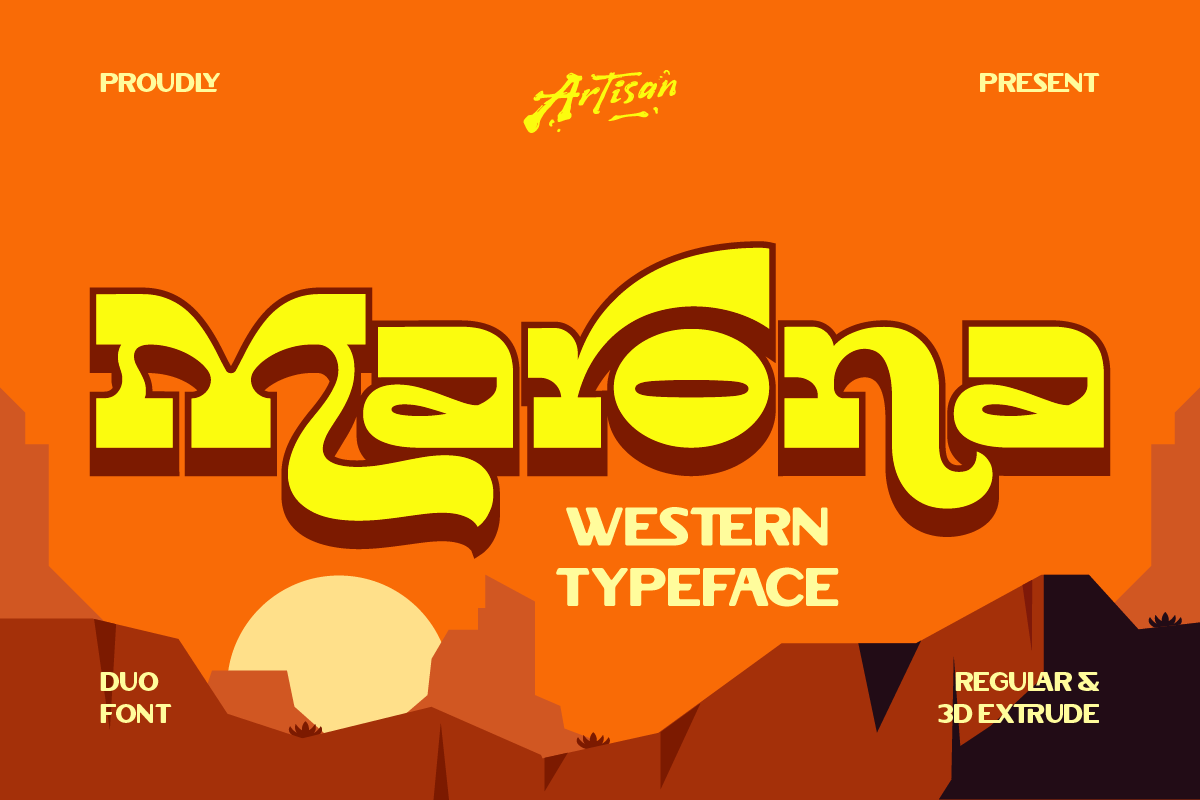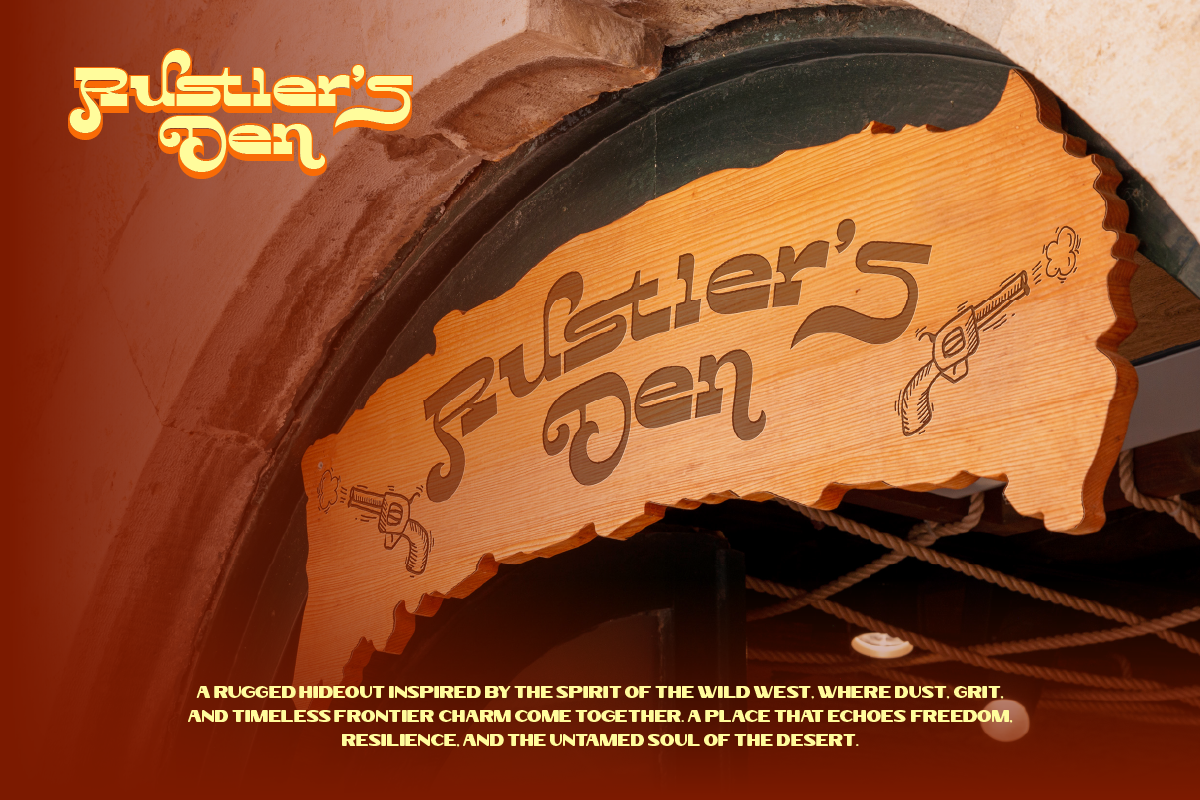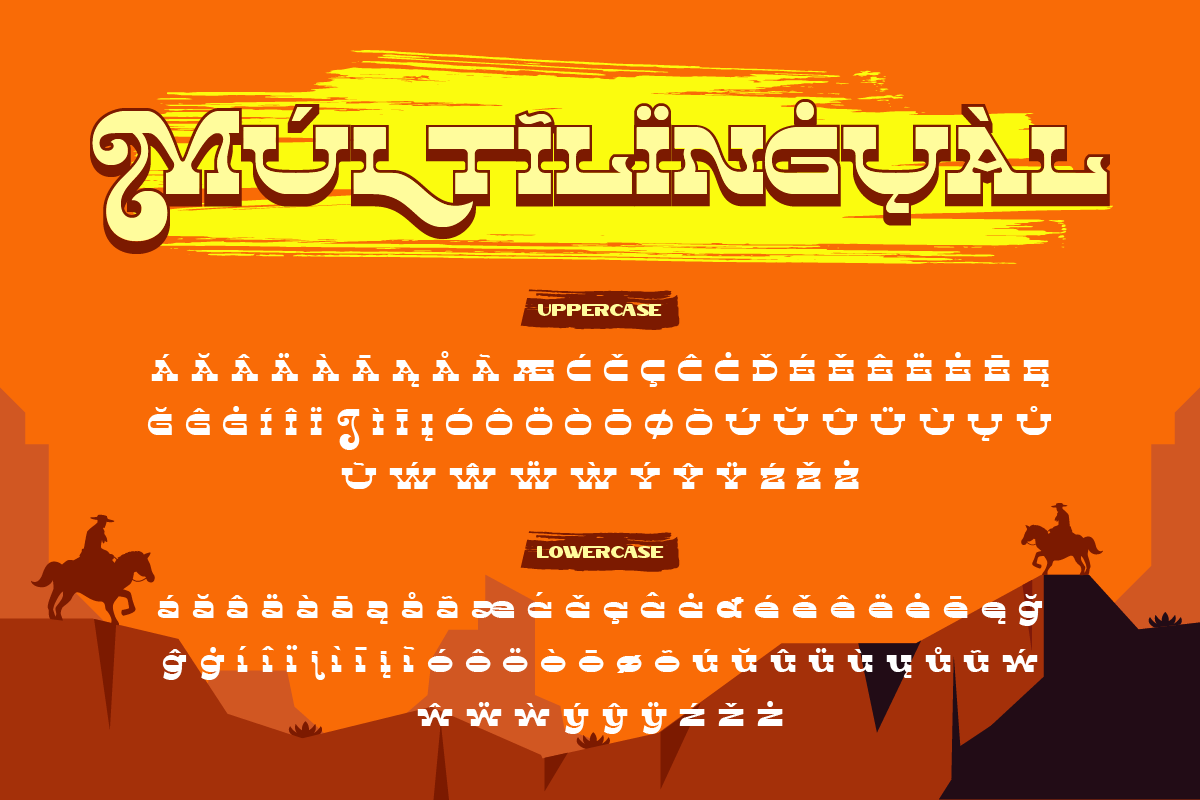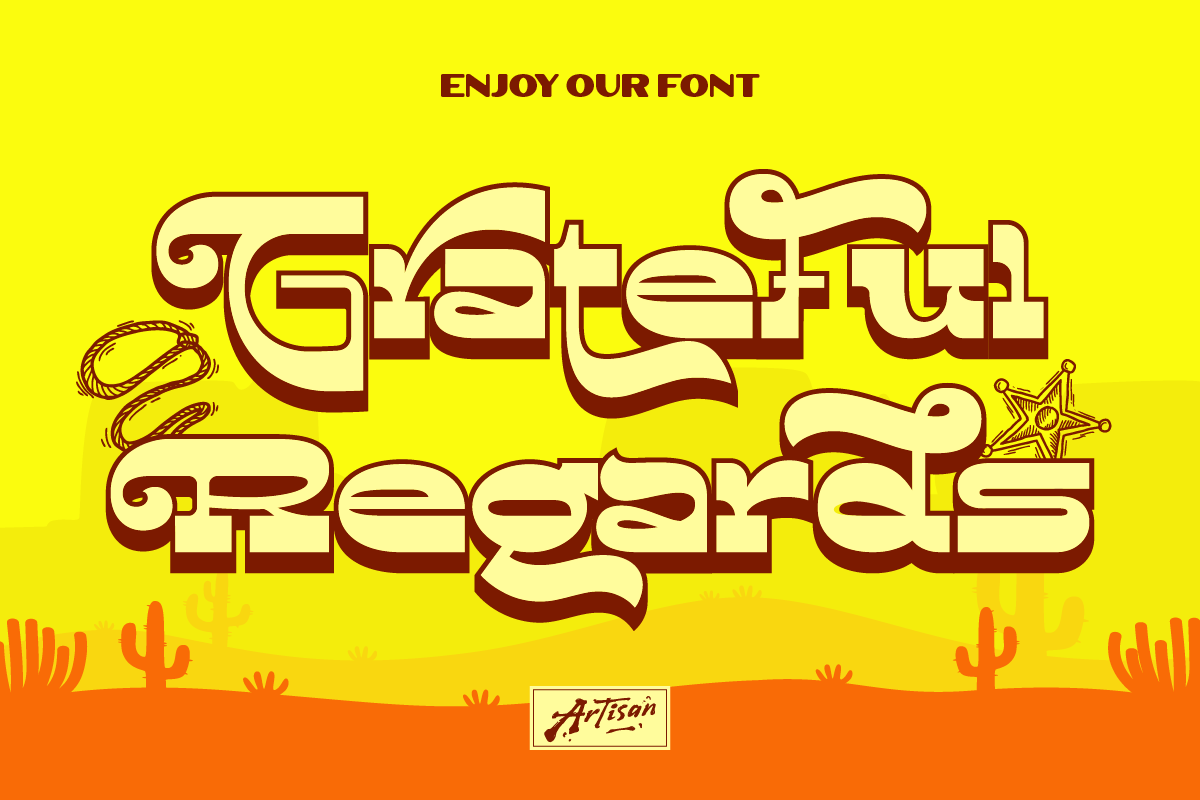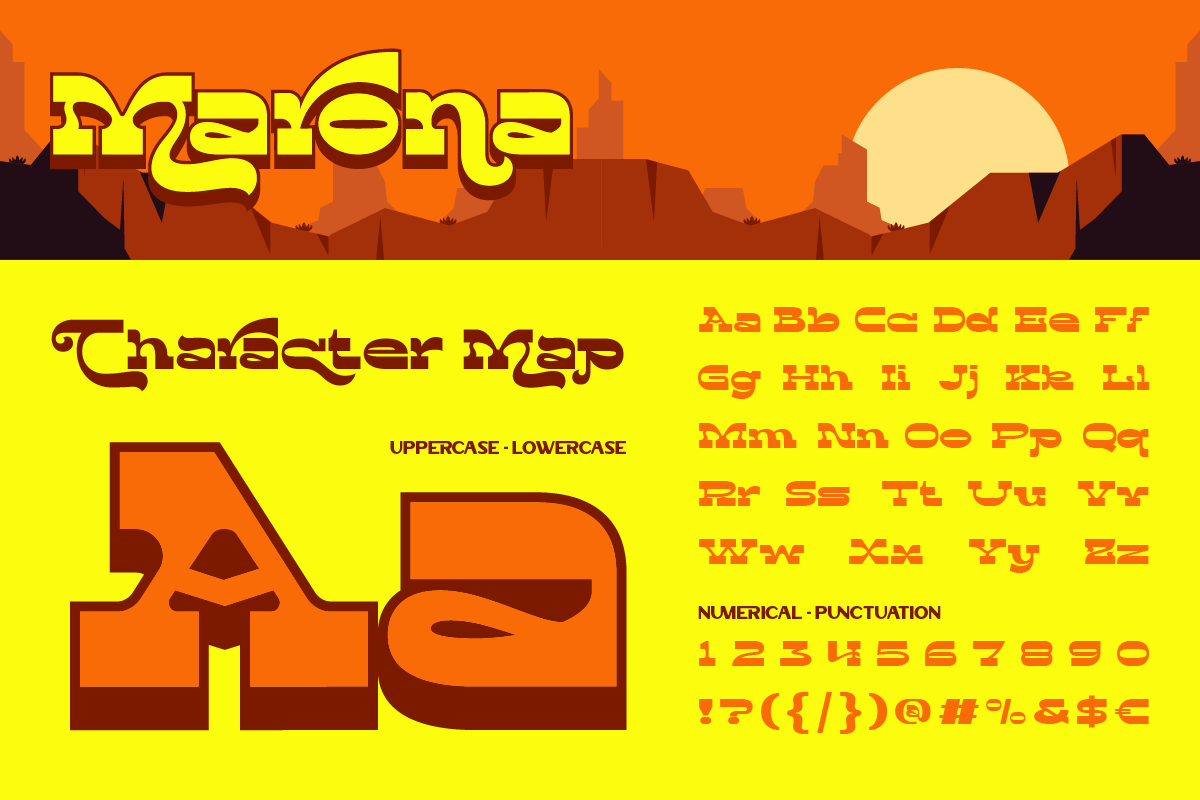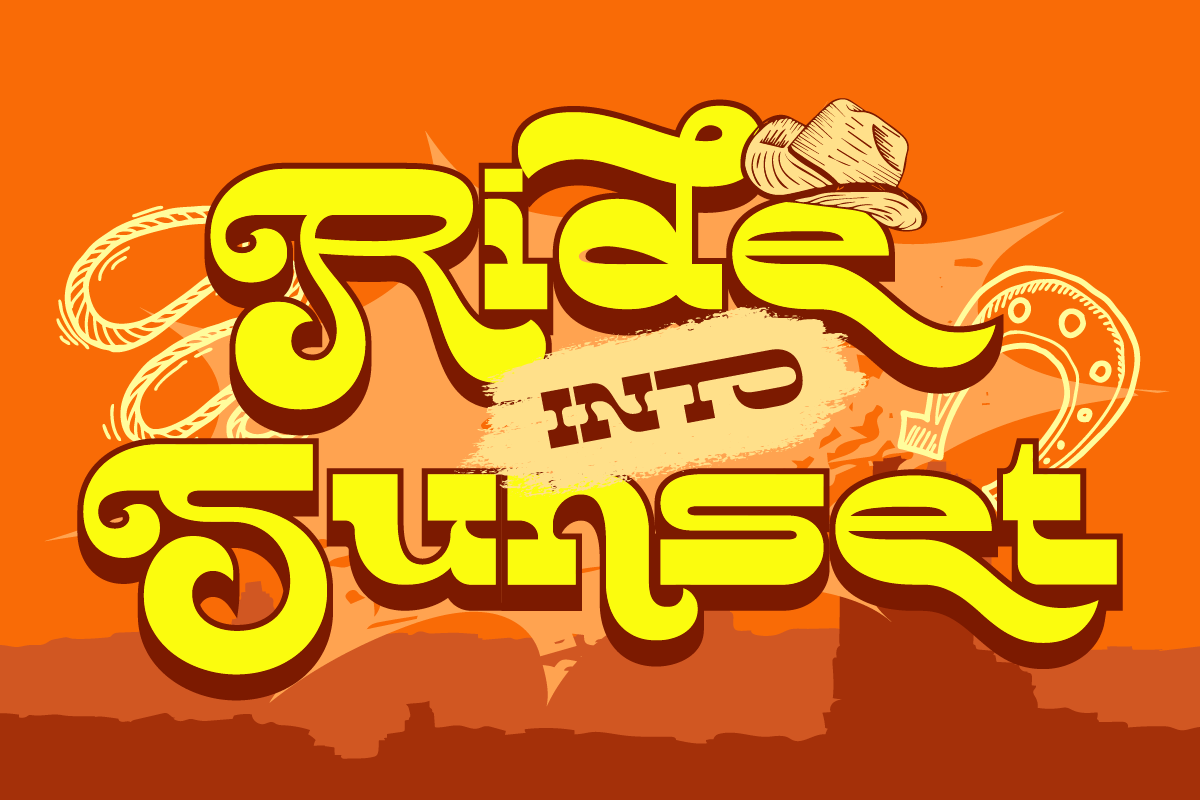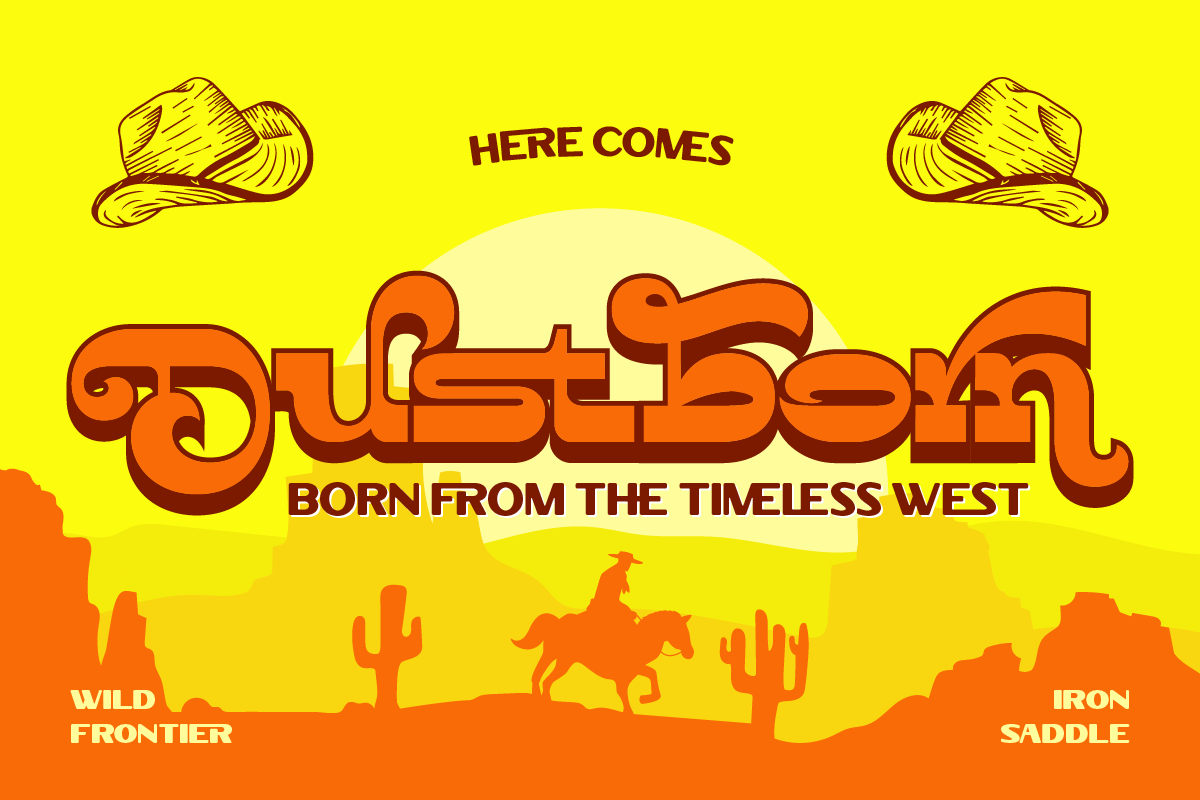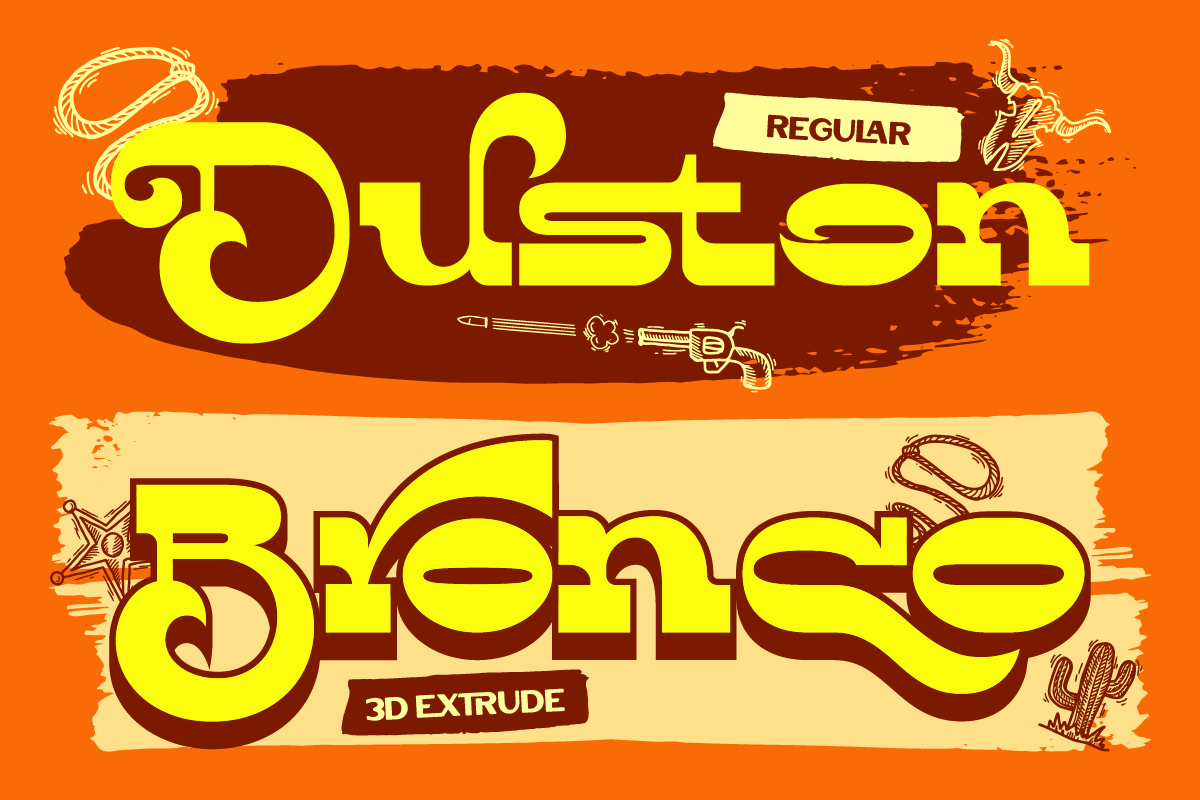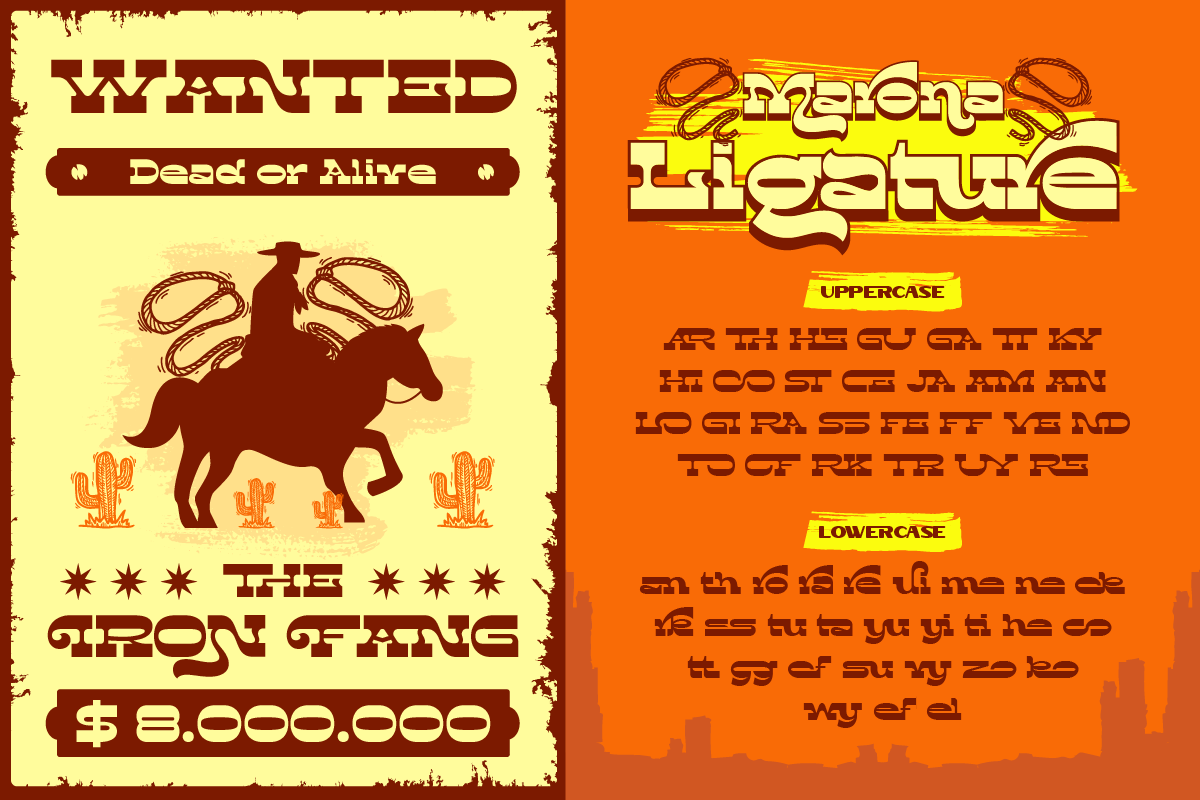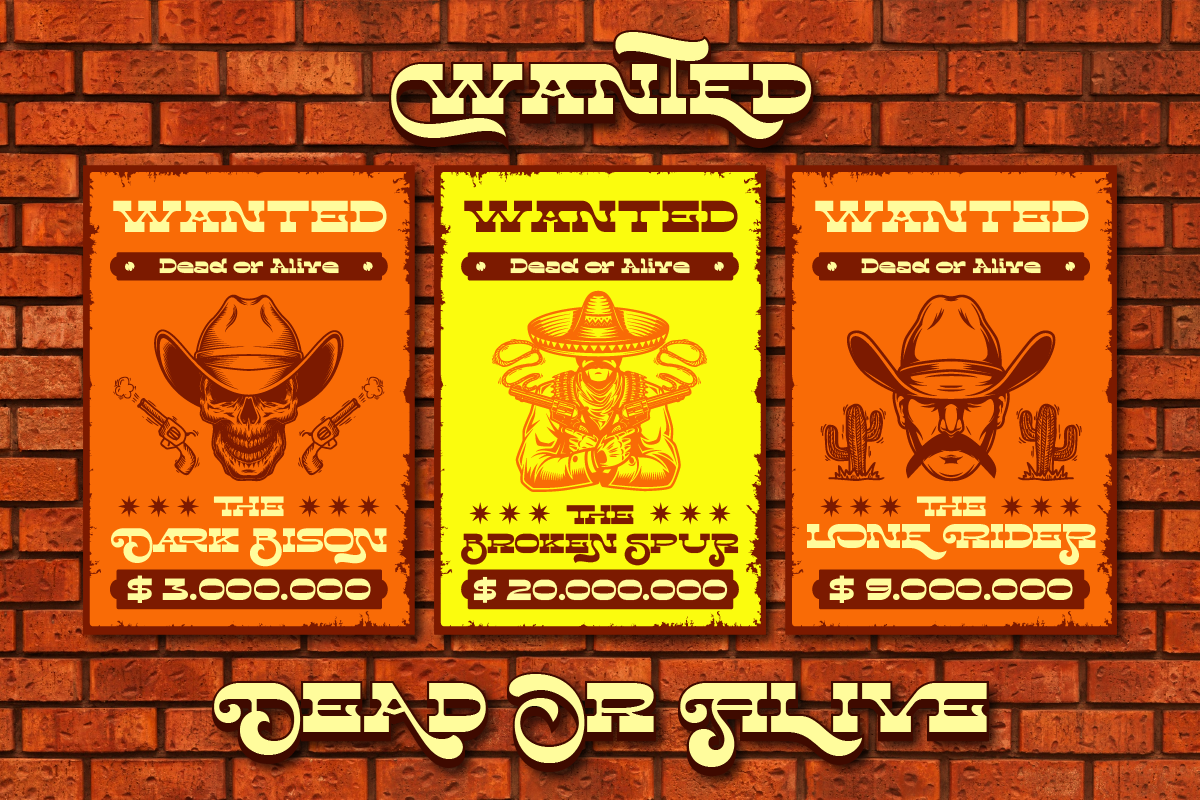
Marona is a bold western-inspired typeface with a modern playful twist. Its chunky curves and unique letterforms give off a fun yet strong vibe, making it perfect for logos, posters, headlines, or anything that needs to stand out. Whether you want to bring that adventurous cowboy spirit or just add a little boldness to your design, Marona has your back. Also it comes, with 2 style: Regular and Extrude (3D). It’s the kind of font that instantly grabs attention while still keeping things chill and stylish.